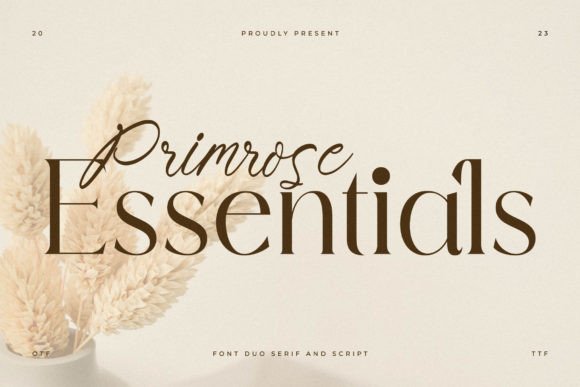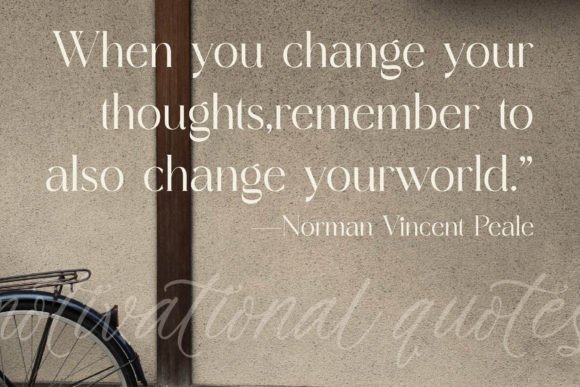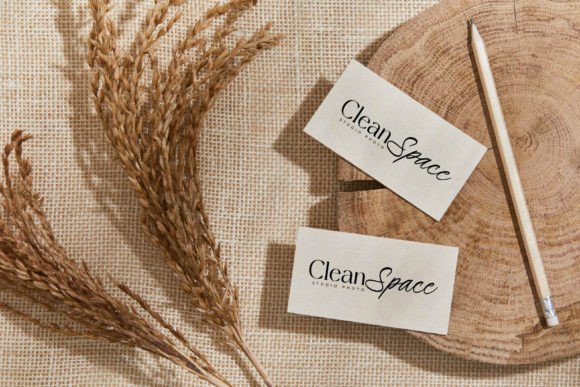
Primrose Essentials Font
About the Primrose Essentials Font
Step up your design game with Primrose Essentials Font, a font that exudes confidence and style. Proudly present Primrose Essentials Font Duo.
A serif and script typeface that has its own unique style & modern look.
This typeface is perfect for an elegant & luxury logo, book or movie title design, fashion brand, magazine, clothes, lettering, quotes, and so much more.
Primrose Essentials’ elegant serif and flowing script pairing is ideal for luxury branding, headlines, and short text applications such as logos, invitations, and packaging design. Its refined aesthetic also lends itself well to high-end fashion and publishing projects. However, the script typeface is not suitable for large bodies of text or UI elements due to reduced readability.
The serif typeface works effectively as a body font for short paragraphs or sections, particularly in high-contrast applications. Consider pairing the Primrose serif with a clean, geometric sans-serif like Montserrat for a modern feel or a classic serif like Garamond for a more traditional look. Pairing the script with a simple sans-serif like Lato for contrast will enhance its decorative impact.
Overall, Primrose Essentials projects a sophisticated and luxurious personality, best suited for brands emphasizing quality, craftsmanship, and timeless style.
Primrose Essentials Font Usage Examples
Primrose Essentials Font Example